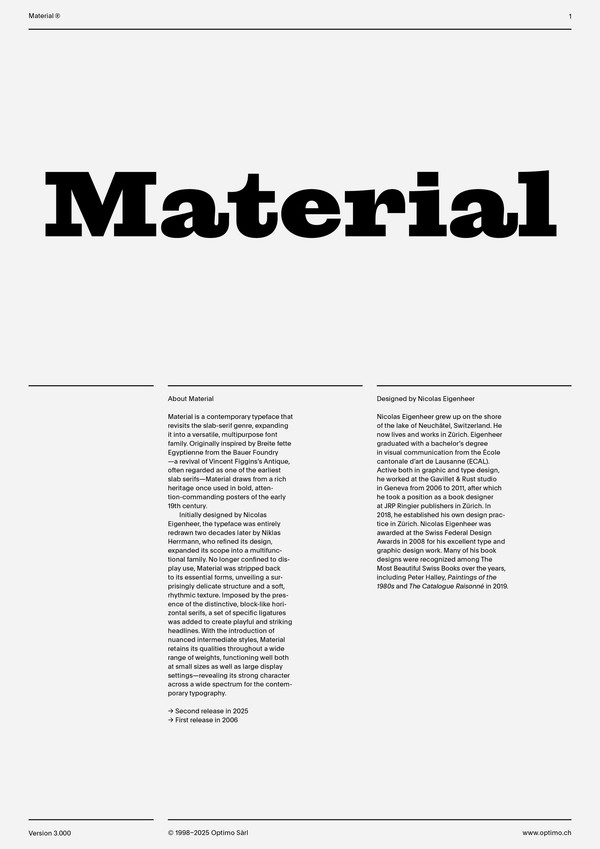
Material Variable
Case Sensitive Forms
All Caps [cpsp]
Case Sensitive Forms [case]
This function formats the text in uppercase and adjusts spacing between all capital letters. It also applies the ‘Case Sensitive Forms’ feature which replaces certain characters with alternates that are better suited for all capital text, especially related to punctuation.
Contextual Alternates
Contextual Alternates [calt]
This feature adapts the position of a glyph after its surrounding context. For instance, a dash placed between two uppercase letters or numbers will be replaced by an uppercase version of the dash, slightly higher. This feature is usually active by default in Adobe applications.
Alternate a
Stylistic Set 1 [ss01]
This feature replaces glyph(s) with stylistic alternate(s).
Alternate g
Stylistic Set 2 [ss02]
This feature replaces glyph(s) with stylistic alternate(s).
Uppercase Ligatures
Stylistic Set 3 [ss03]
This feature replaces glyph(s) with stylistic alternate(s).
Alternate Q
Stylistic Set 7 [ss07]
This feature replaces glyph(s) with stylistic alternate(s).
Alternate @
Stylistic Set 8 [ss08]
This feature replaces glyph(s) with stylistic alternate(s).
Rounded Dots
Stylistic Set 11 [ss11]
This feature replaces glyph(s) with stylistic alternate(s).
Alternate %
Stylistic Set 9 [ss09]
This feature replaces glyph(s) with stylistic alternate(s).
Tabular Lining Figures
Tabular Lining Figures [tnum–lnum]
Based on the proportions of the capitals, lining figures have an invariable height. With the combination of the tabular spacing format, the width of each numeral is uniformized. This feature is useful when numerals need to all lined up. It facilitates the reading of numbers set within columns or tables. As some applications don’t have access to this feature, proportional figures are set as the default choice.
Proportional Oldstyle Figures
Proportional Oldstyle Figures [pnum–onum]
Based on the design of the lowercase, oldstyle figures have varying ascenders and descenders. Like most of the letters, each number has an appropriate width based on its shape. The combination of oldstyle figures with proportional setting generate numerals perfectly adapted for text.
Tabular Oldstyle Figures
Tabular Oldstyle Figures [tnum–onum]
Based on the design of the lowercase, oldstyle figures have varying ascenders and descenders. With the combination of the tabular spacing format, the width of each numeral is uniformized. This feature is useful when numerals need to all lined up. It facilitates the reading of numbers set within columns or tables.
Fractions
With this feature, any numbers separated by a slash will automatically turn into a fraction. To fit in fraction configuration, numerals have been designed smaller and their weights have been adjusted to suit the typeface.
Lowercase math symbols
Stylistic Set 6 [ss06]
This feature activates alternate lowercase positioning of mathematical symbols.
This feature replaces any letter following a numeral with its matching superior letters. French language uses the ordinal indicators such as ‘er’ for 1er premier, while Spanish, Portuguese and Italian require the feminine and masculine ordinals ‘a,’ ‘o’ for 1º, 1ª. Ordinals are designed to match the weight of the typeface.
Slashed Zero
Slashed Zero [zero]
Originally created to avoid the confusion between the ‘0’ and the ‘O’, this feature substitutes all zeros in a selected text by a slashed form of the zero.
Slashed Zero Oldstyle
Slashed Zero [zero]
Originally created to avoid the confusion between the ‘0’ and the ‘O’, this feature substitutes all zeros in a selected text by a slashed form of the zero.
Proportional Oldstyle Figures [onum]
Tabular figures are all of equal width. They are only needed when the figures must all line up from one line to the next, as in a table. Proportional figures have varying widths, just like most letters; each number has a width appropriate to its design. Lining figures are all the same height, usually similar to that of capital letters. They are needed for use with all-capital settings.
With the introduction of nuanced intermediate styles, Material retains its qualities throughout a wide range of weights, functioning well both at small sizes as well as large display settings—revealing its strong character across a wide spectrum for the contemporary typography.